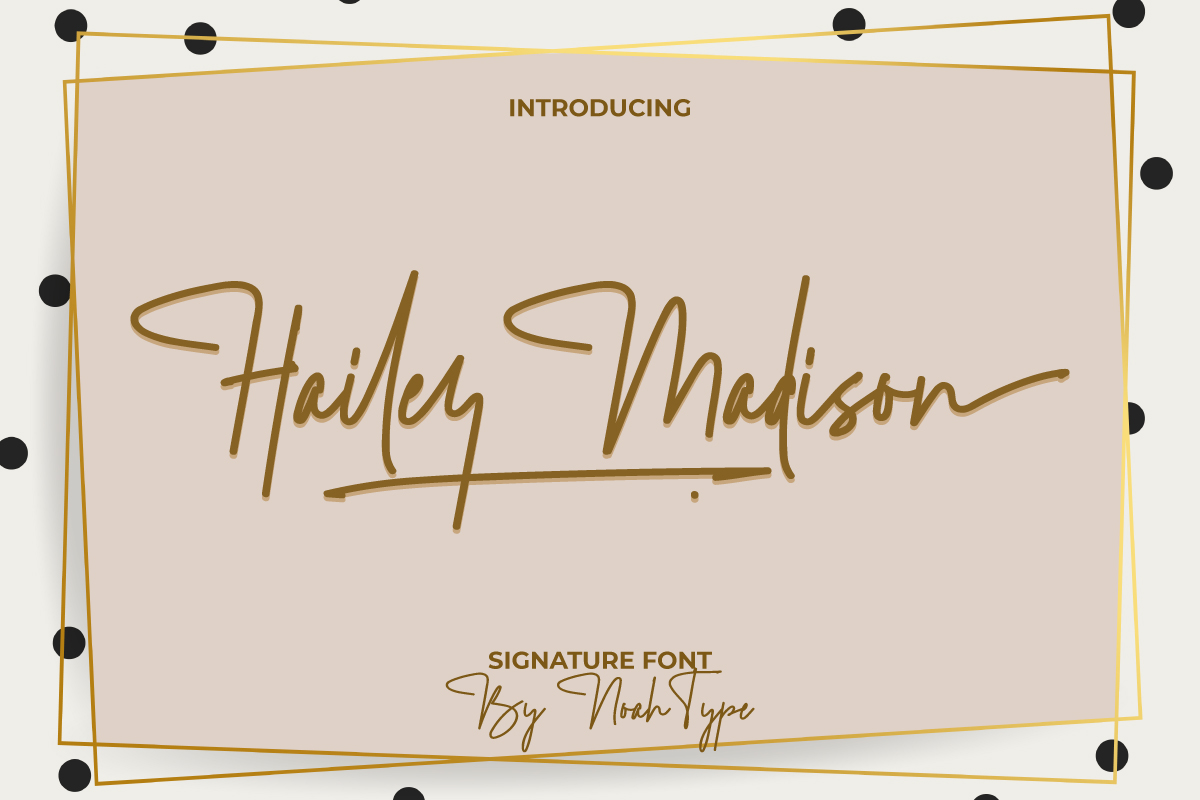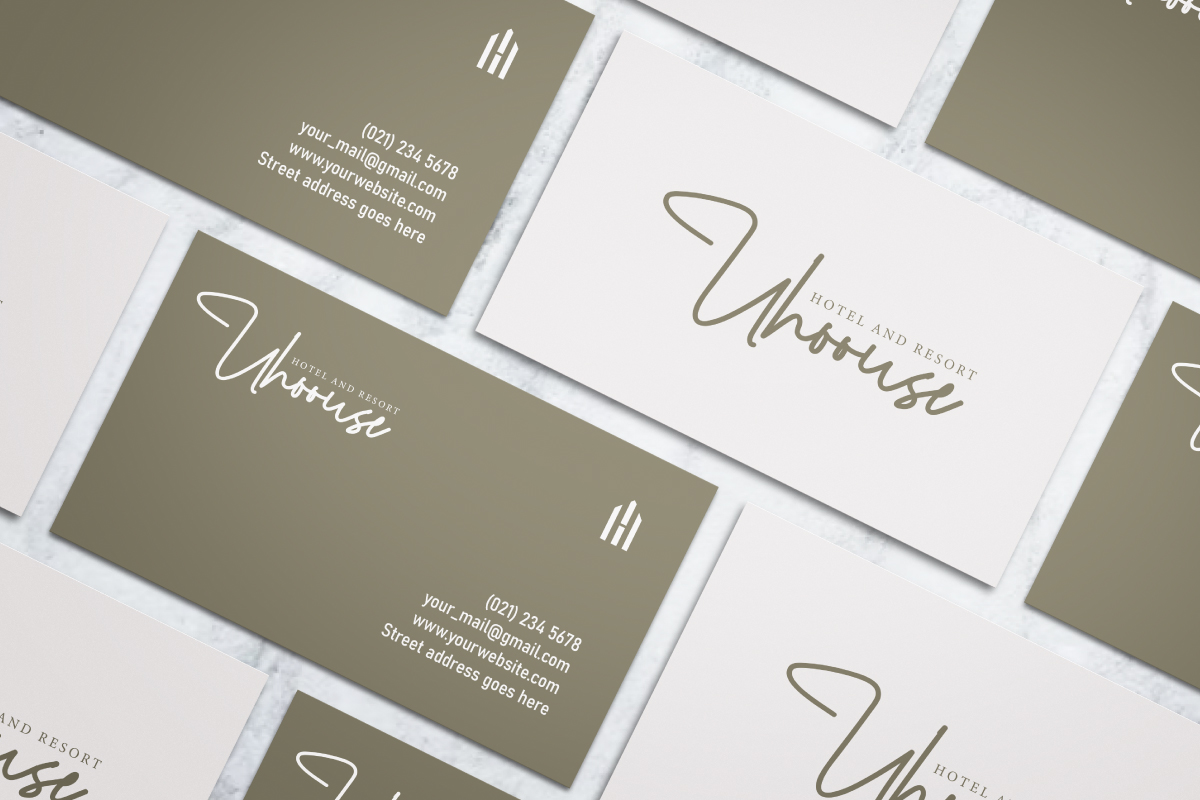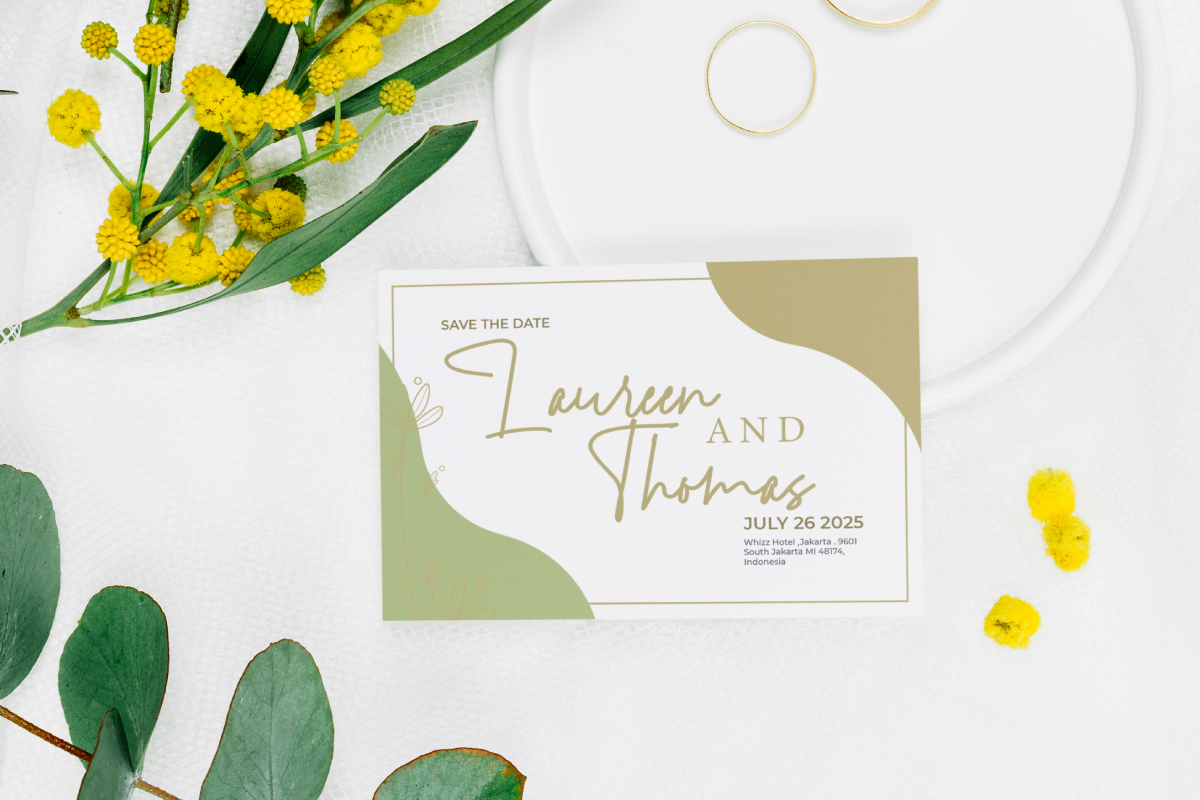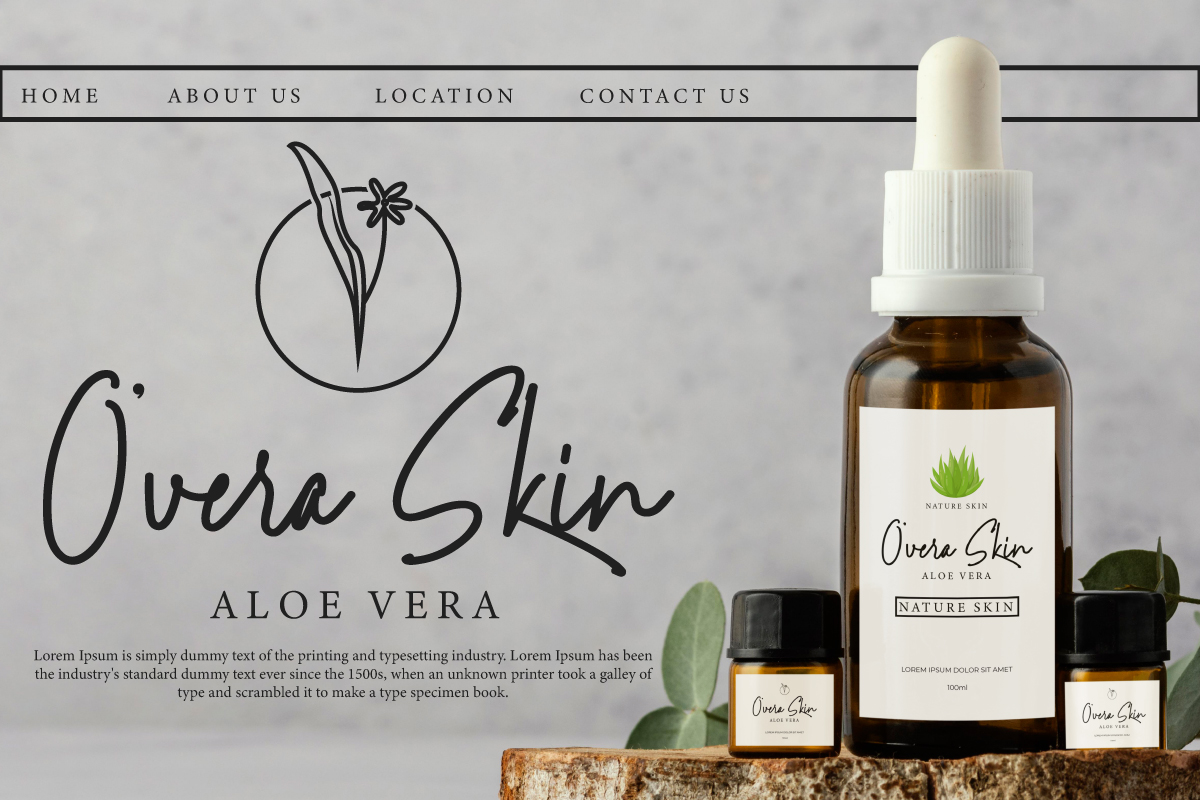
Hailey Madison Font
This is a casual signature font with handwriting style. This font is carefully crafted in every scratch to look natural so it can create a masterpiece that is perfect for any of your projects. This awesome script font would be perfect for any business or industry that requires elegance, such as architect, artist, cosmetic, fashion, florist, homeware, photography, resort, salon and spa, wedding, writer, and more!